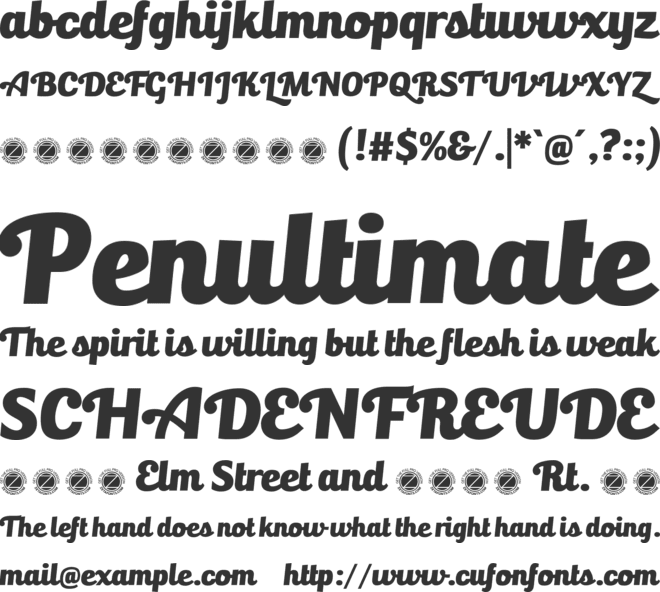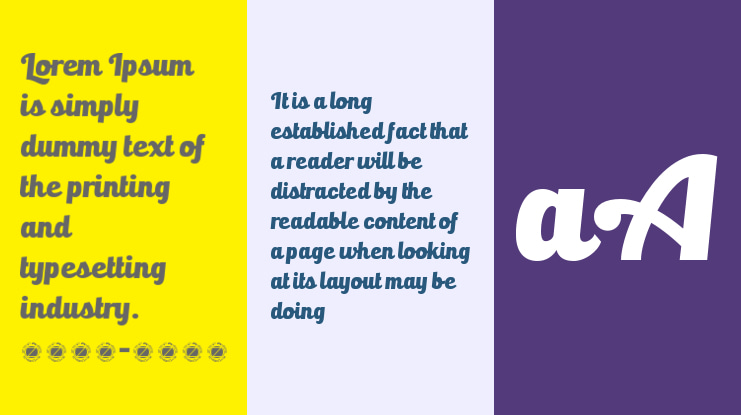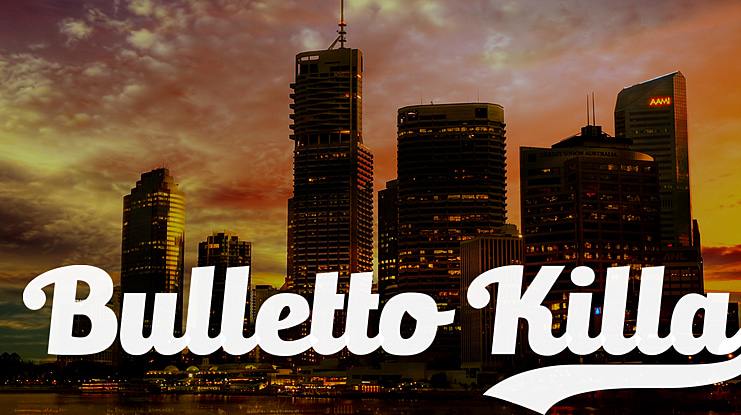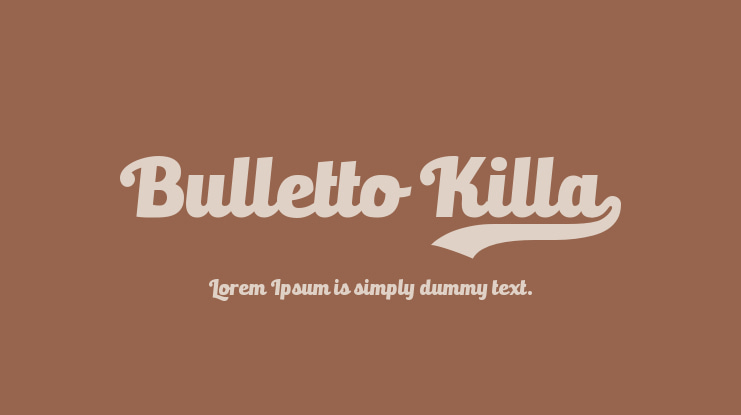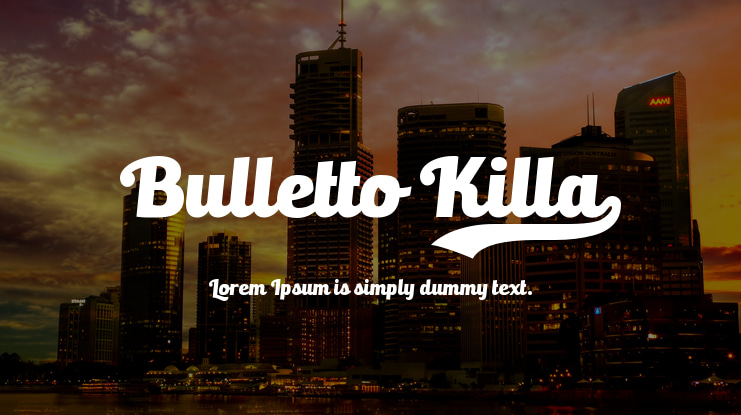
Bulletto Killa¬ Font
Bulletto is a bold display script font, perfect for logos and headlines. Opentype features include ligatures, swashes, finals and a full set of uppercase alternates.
To get swashes: type multiple underscores ("__", "___")
To get alternate finals: type double hyphens ("--")